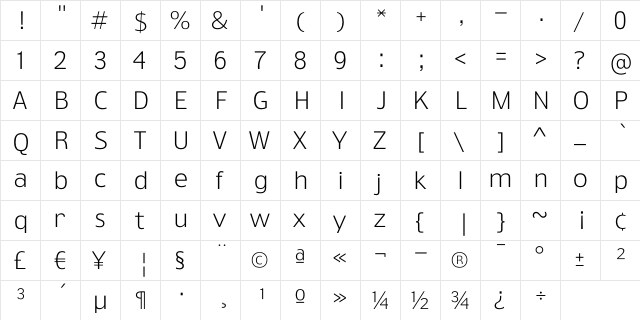
TruthCYR Light
| Foundry | The Font Bureau, Inc |
| Designer | David Berlow |
Design Context for TruthCYR Typeface
TruthCYR is a composed and adaptable typeface that performs quietly and consistently across a wide range of design contexts. The delicate stroke weight brings airiness and refinement to layouts.